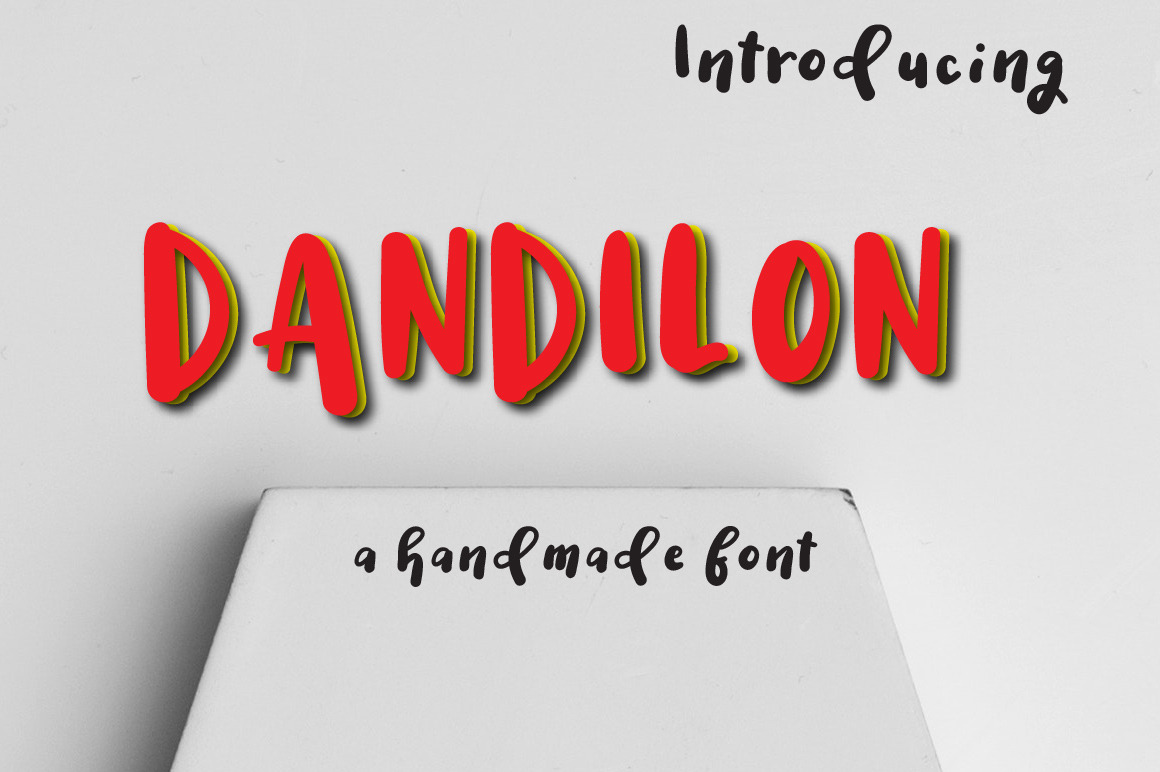
Dandilon Multilingual Typeface
Dandilon typeface has been carefully crafted to make your text look beautiful. With modern style this font is perfect for many different project ex: quotes, blog header, poster, wedding, branding, logo, fashion, apparel, letter, invitation, stationery, etc.